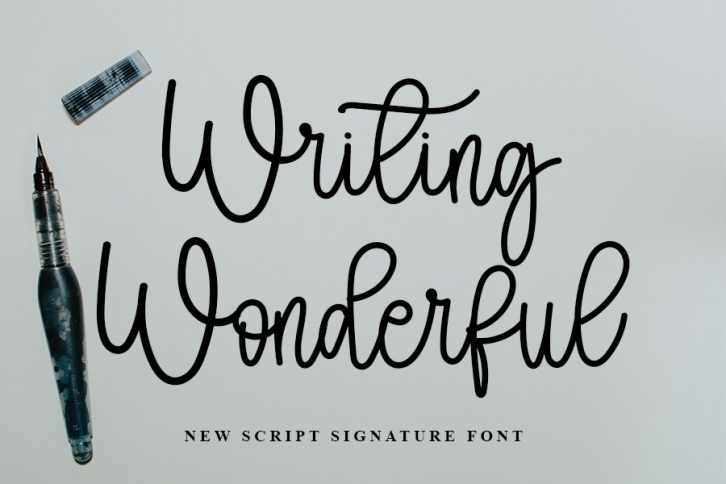
Writing Wonderful is a beautiful font that was designed by FreshType INK. It's a great choice for designers and creatives who need such a font. It was released on July 23, 2022 and the file size is 12.87 MB. Writing Wonderful may give a more youthful, expressive and casual look to your project. It is a very beautiful, refined, elegant, and high-quality font.